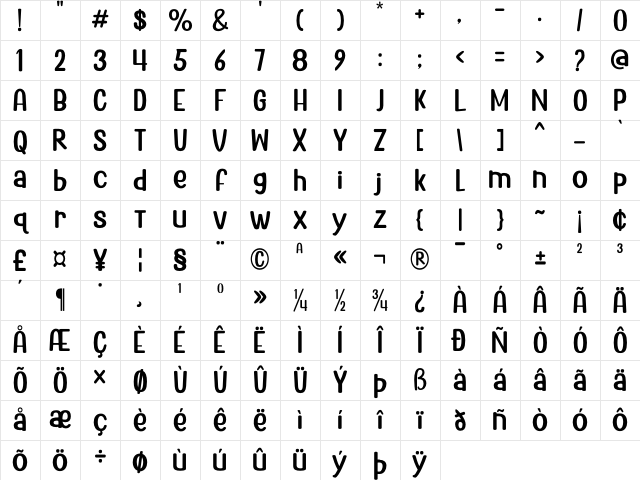
Bright Aurora Regular
Foundry: Megatype
Designer: M Akmal
Bright Aurora Family
Design Context for Bright Aurora
Bright Aurora is a composed and adaptable typeface that performs quietly and consistently across a wide range of design contexts.
Pro Tip: Use Bright Aurora in both headline and body roles to test its range before committing to a single application.